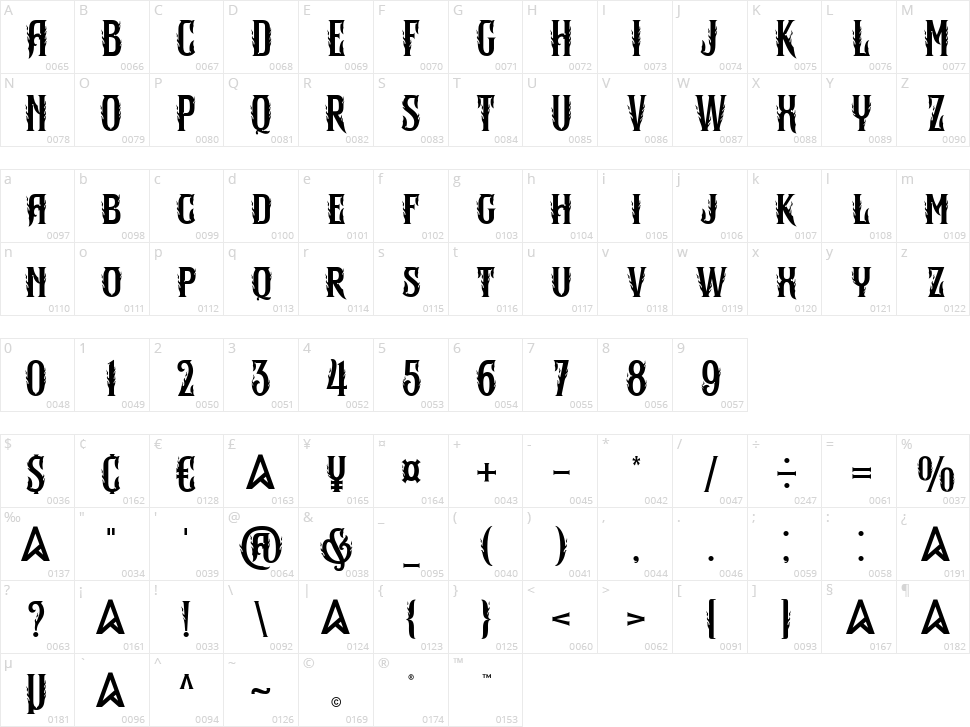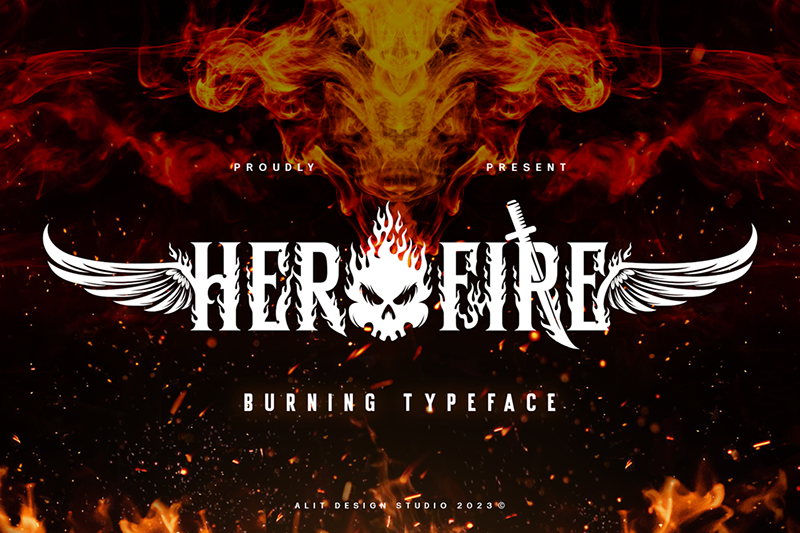
Hero fire
Hero Fire is a dynamic and bold typeface that embodies the essence of a powerful superhero. The characters are meticulously crafted with strong serifs, exuding strength and resilience. The design seamlessly blends classic typography with iconic superhero elements, making it a distinctive and impactful choice for display purposes.